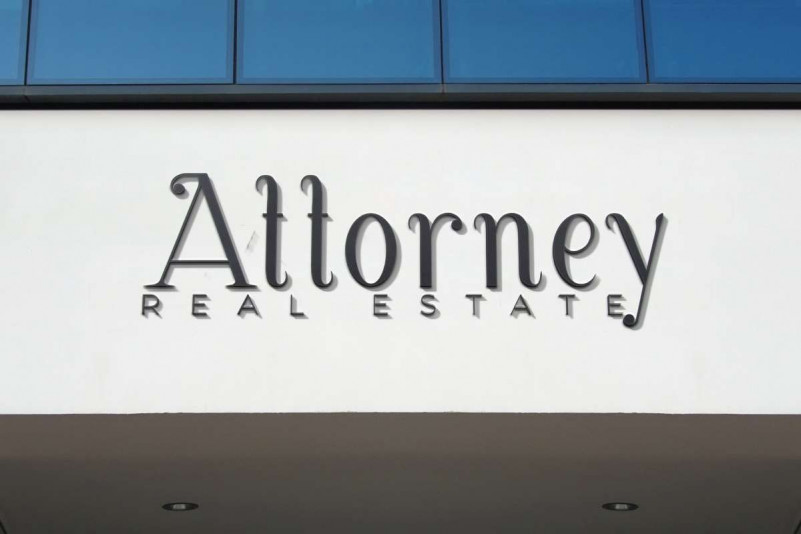
Decemberain Font
Decemberain Font is a casual serif display font. This font has a beautiful elegant style and comes in two different styles, Regular and Italic. It would be the best choice for many industries, such as architect, beauty product, clothing brand, florist, furniture, handicrafts, homeware, printing, publishing, real estate, writer, and more!
Decemberain Font include full set of Uppercase and Lowercase Basic Characters, Numerals and Punctuation. This font would be perfect for projects that require an luxurious feel, such as brand logo, calendar, frame art, header, mockup design, paragraph, poster, product packaging, signage, stationery, website, etc.